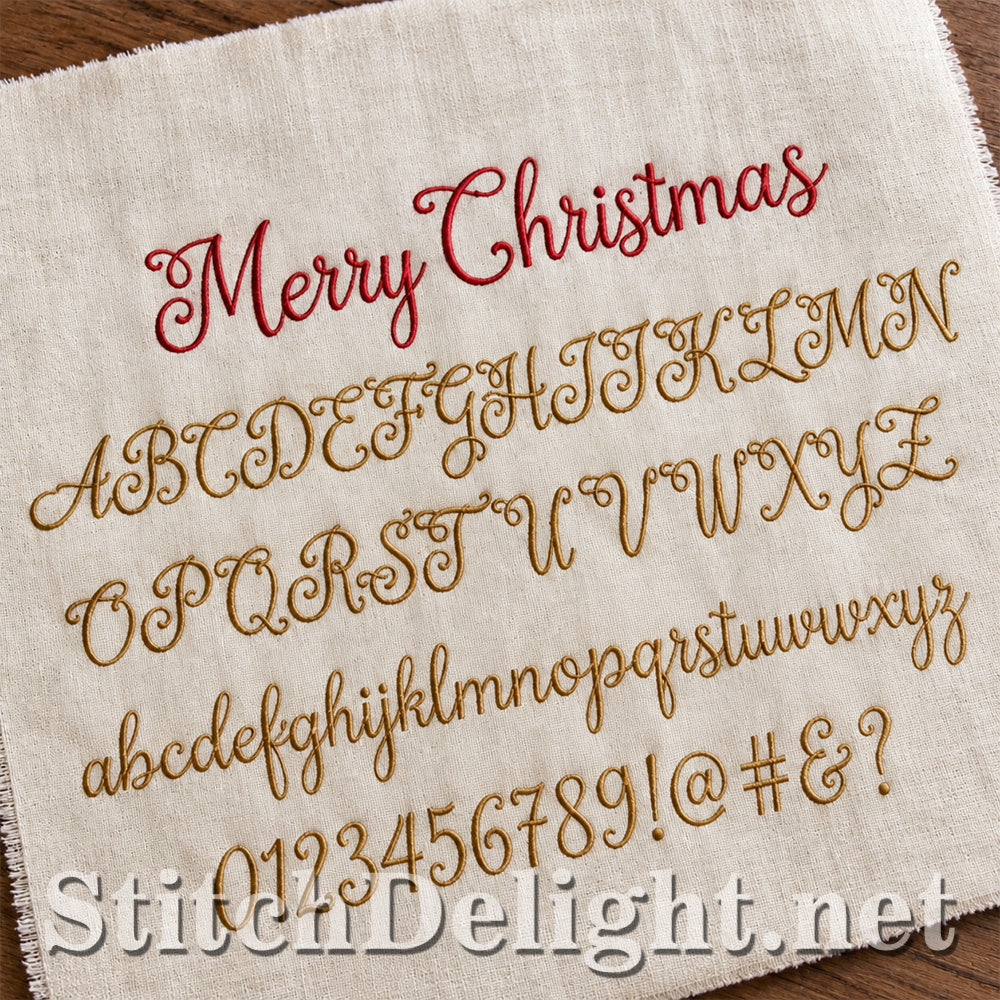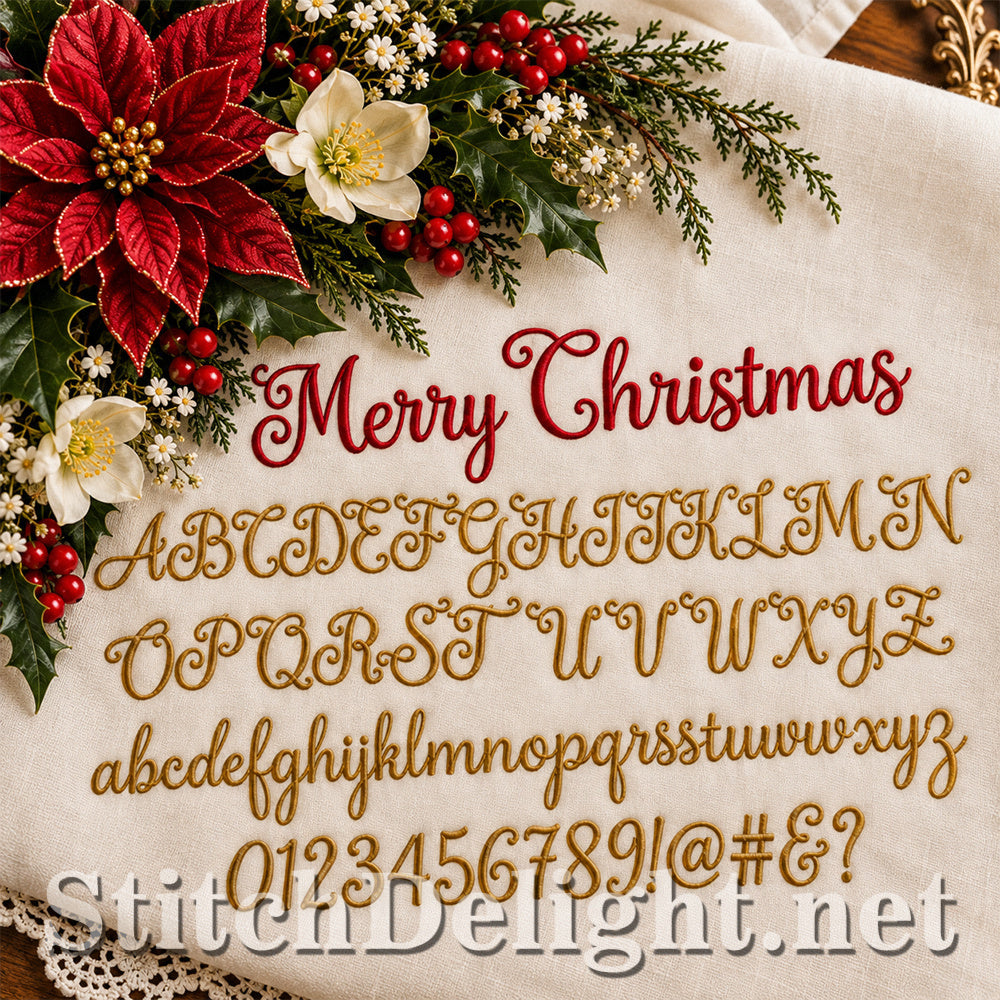
Add a touch of elegant, old-fashioned charm to your embroidery projects with Austin, a beautifully curly script embroidery font designed especially for smaller projects.
With its delicate flourishes and graceful lettering, Austin has a lovely vintage, romantic feel that makes it especially beautiful for Christmas projects, personalised gifts, linens, towels, kitchen textiles, ornaments, stockings and more.
The font is approximately 1 inch high, making it ideal when you want elegant lettering without taking up a lot of space.